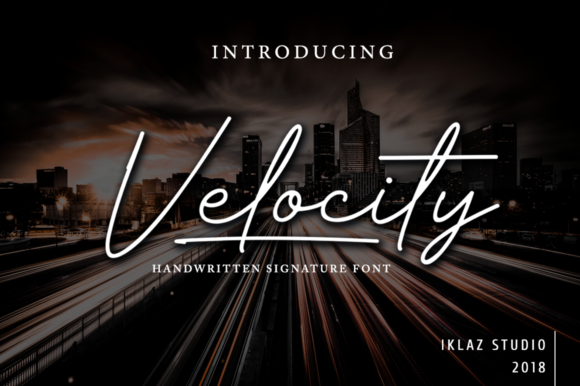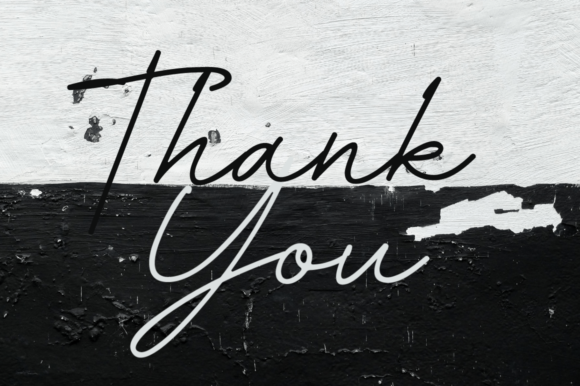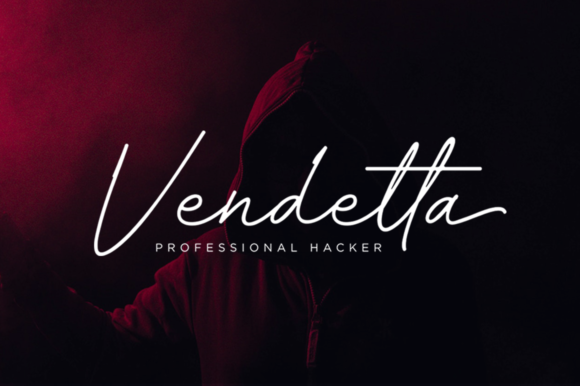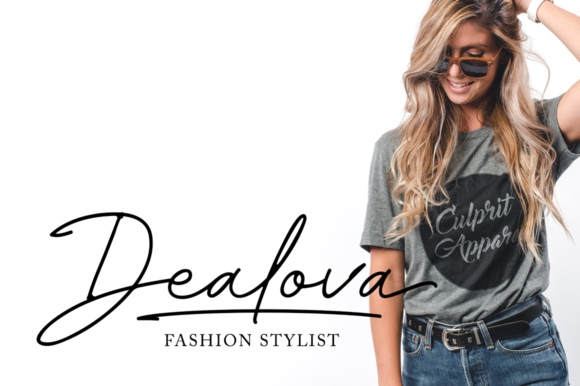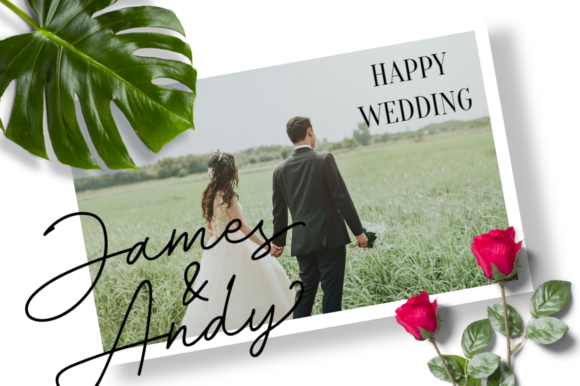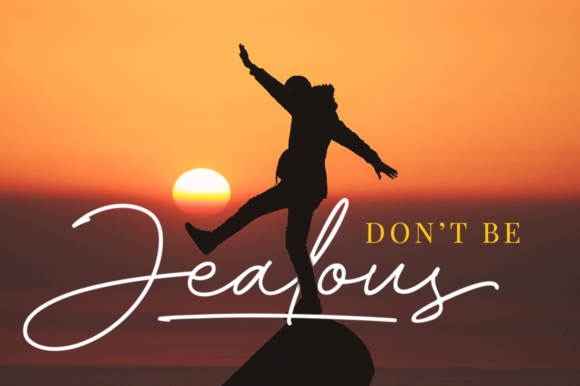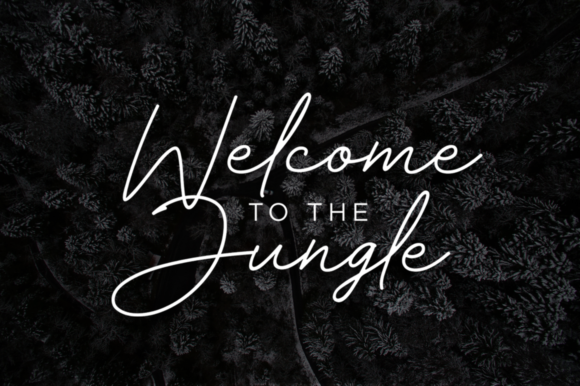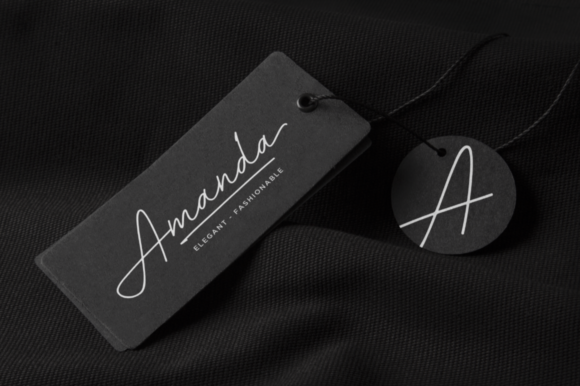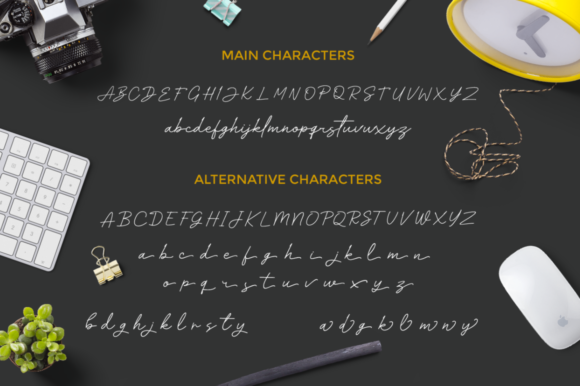
Velocity Font
About Velocity Font
Velocity is a handwritten signature font. It’s perfect for signature logos, quotes, fashion, wedding invitations or any business that wants to appear elegant.